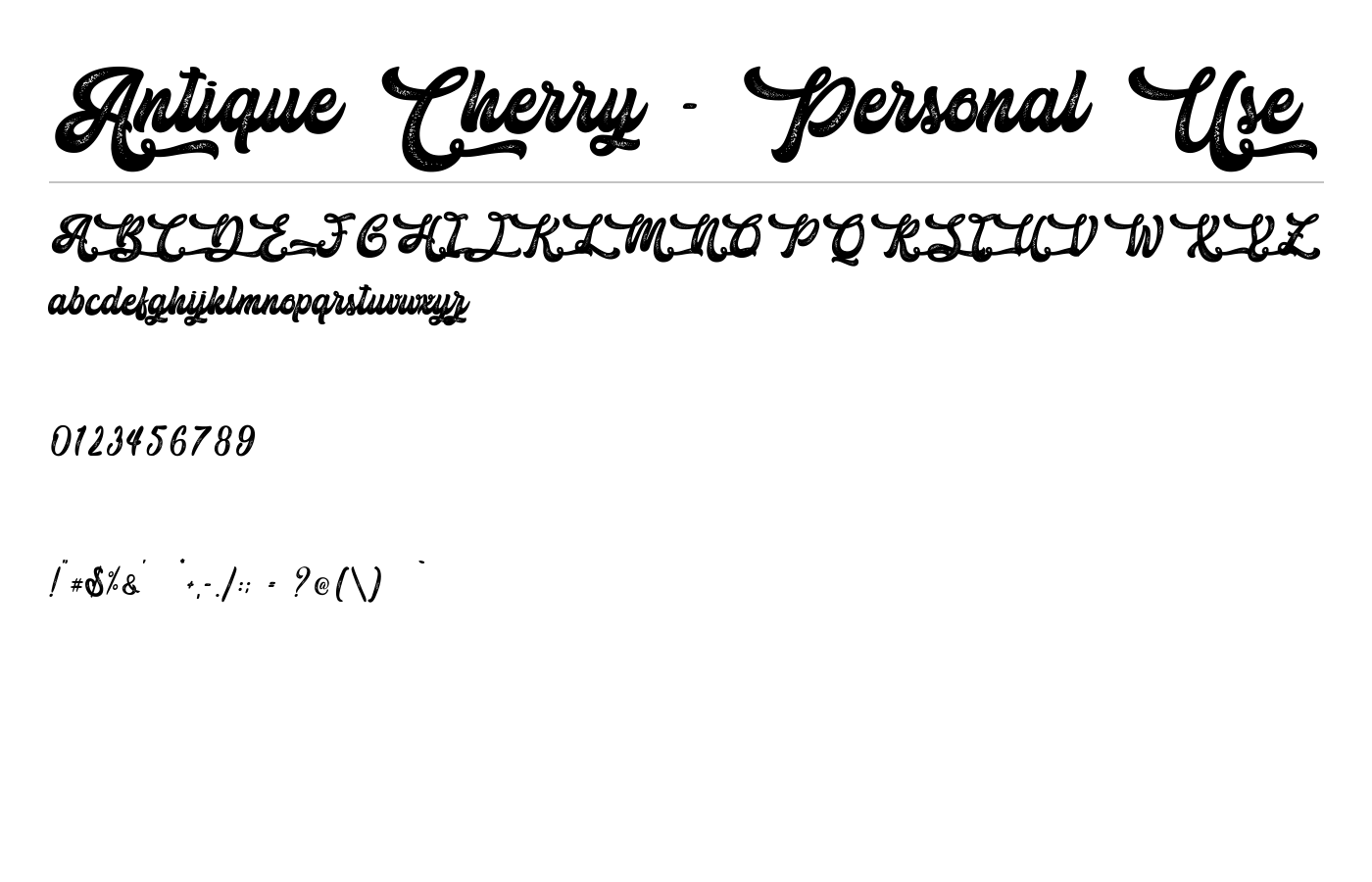
Antique Cherry is a bold, decorative script font with a vintage flair, featuring thick and slightly textured strokes that give it a handcrafted feel. Its flowing, cursive letterforms combined with unique flourishes make it perfect for designs seeking a playful yet nostalgic charm. This font works well for branding, logos, packaging, and headlines where a touch of personality and retro elegance is desired.
Antique Cherry - Personal Use Font
About Antique Cherry - Personal Use Font